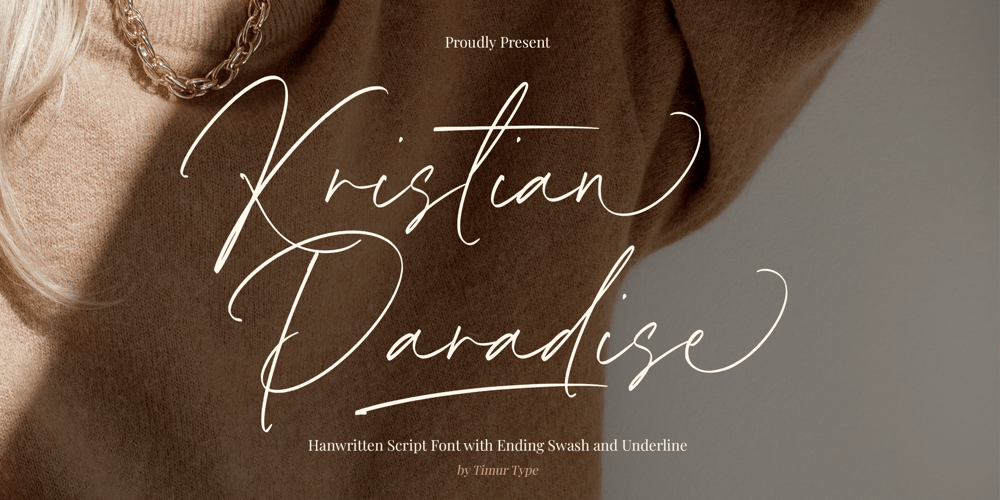
Kristian Paradise Font Family was designed by Wara Sigit Tri Pamungkas and published by Timurtype. Kristian Paradise contains 1 styles and family package options. Introduced by Timurtype Studio!Kristian Paradise is a Handwritten Script Font This font is mesmerizing handwritten script that adds a touch of elegance to your design, complete with enchanting swashes and a graceful underline. Elevate your creations with the perfect blend of style and sophisticationKristian Paradise Font also supports multilingualism.Enhance your designs with our original fonts, feel free to comment or provide feedback, Enjoy the fonts ๐